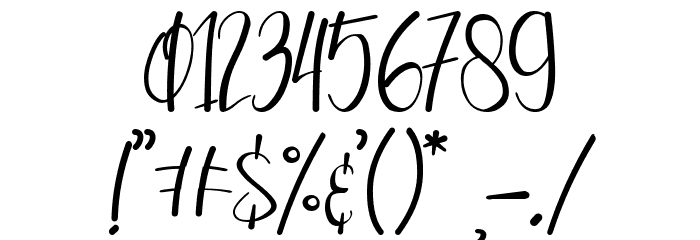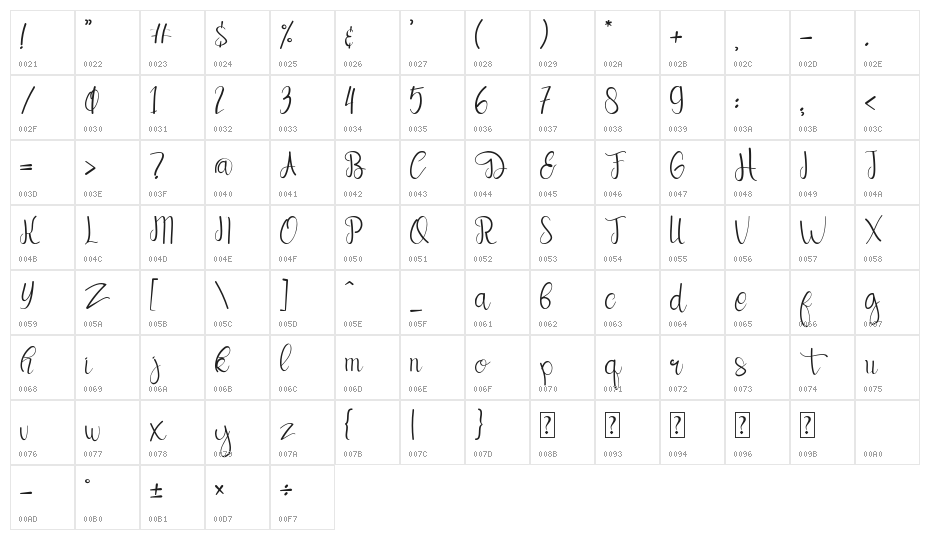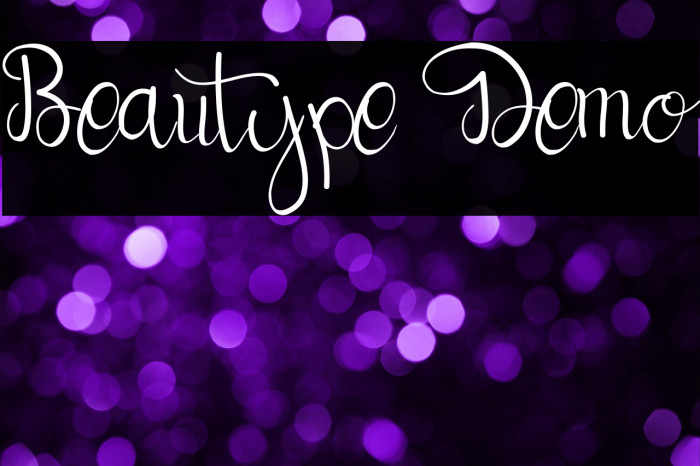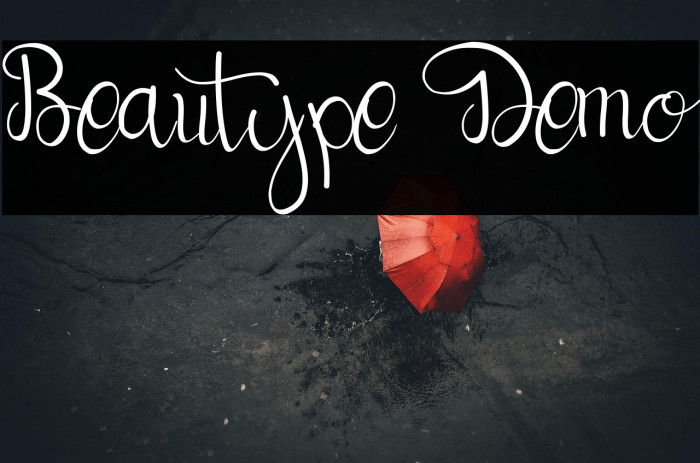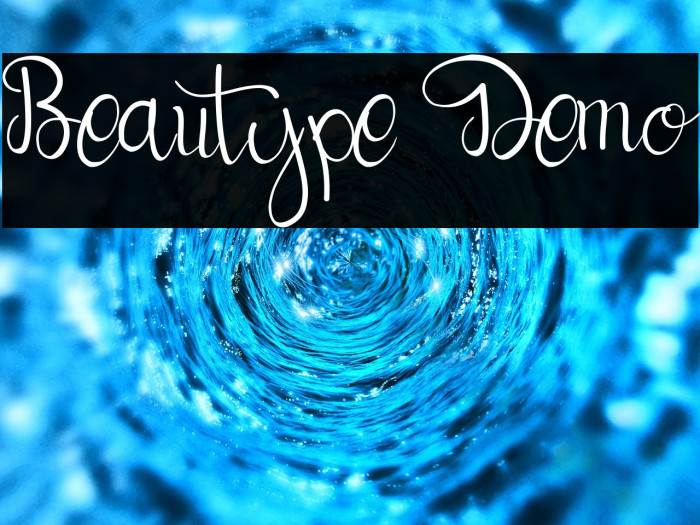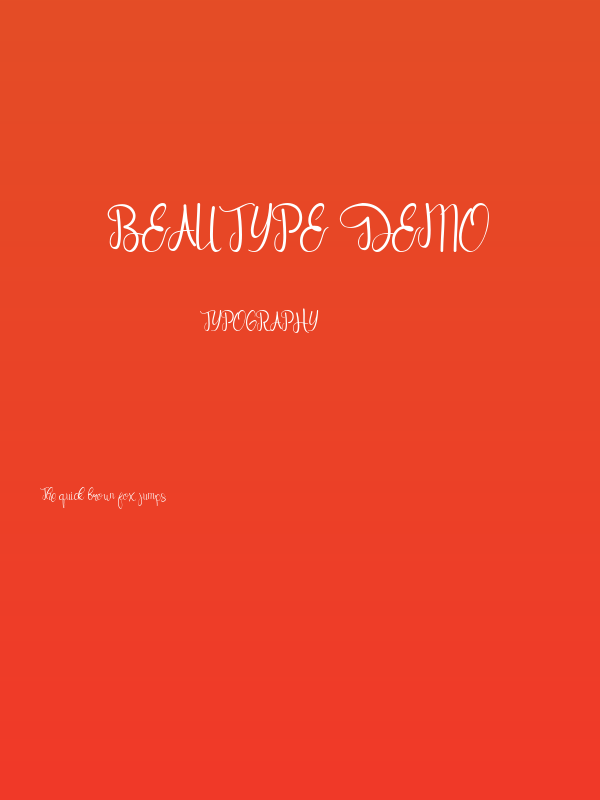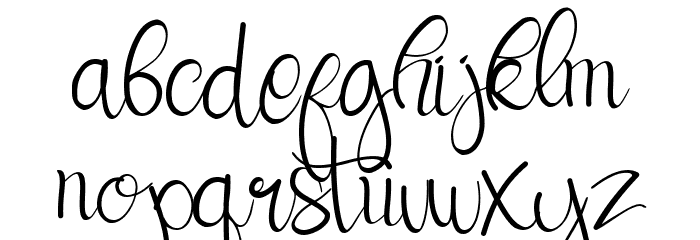
Beautype Demo Font
Beautype Demo Description
This font exhibits a flowing, cursive style with elegant loops and swashes, giving it a handwritten appearance. The uppercase letters are bold and expressive, while the lowercase letters maintain a consistent, smooth flow. Numbers and special characters are crafted with the same attention to detail, ensuring a cohesive look across all glyphs. The overall design is both playful and sophisticated, making it suitable for creative projects that require a personal touch. The strokes vary in thickness, adding a dynamic quality to the text, and the spacing between characters is balanced to enhance readability.